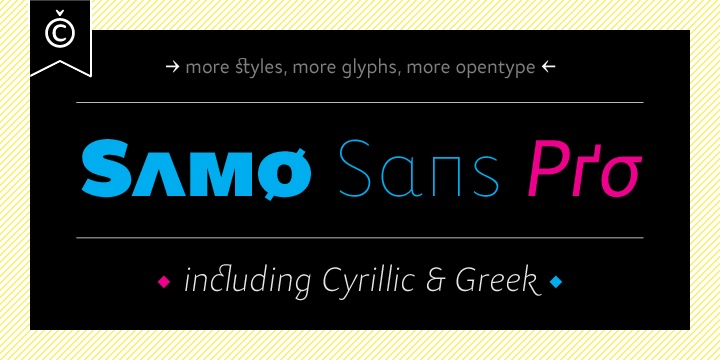
Samo Sans Pro Font
Samo Sans Pro Font is perfect for corporate identity systems, tech company branding, minimalist web design, professional presentations, user interface elements, modern magazine layouts, architectural firm logos, and contemporary business communications.
What makes Samo Sans Pro Font exciting is its clean versatility that balances professional authority with modern accessibility. The font features precisely engineered letterforms with optimal spacing and geometric harmony that create clear, efficient communication across all media. Its systematic design approach and contemporary styling communicate innovation, reliability, and forward-thinking professionalism, making every message feel streamlined and purposeful for today's digital-first business environment.
The Samo Sans Pro Font family includes regular weight with uppercase and lowercase letters, numerals, punctuation marks, and comprehensive special characters. Premium versions often feature multiple weights, condensed variants, and extensive language support that provide complete typographic solutions for complex international branding systems.
This sophisticated sans serif typeface brings instant modernity and professional credibility to any contemporary project. Samo Sans Pro Font Free Download delivers exceptional results for organizations seeking to communicate efficiency, innovation, and systematic thinking to professional audiences and digital users.
The systematic character of Samo Sans Pro Font makes it particularly valuable for technology companies, design agencies, and professional service firms. Its excellent readability across digital and print platforms ensures clear communication while maintaining the distinctive contemporary aesthetic that appeals to modern business professionals and tech-savvy consumers.
Brand strategists and digital designers appreciate how Samo Sans Pro Font effortlessly conveys professional competence and systematic thinking. The font's balanced proportions and clean geometry create polished brand materials that establish trust with audiences seeking reliable, innovative solutions and contemporary business approaches.
The versatile professionalism of this typeface extends to consulting services, financial technology, and modern healthcare where systematic clarity enhances user experience. Samo Sans Pro Font Free Download provides creative professionals with an essential tool for developing memorable, efficiency-focused designs that resonate with audiences who value clarity, innovation, and the systematic approach of contemporary professional excellence in today's competitive marketplace.